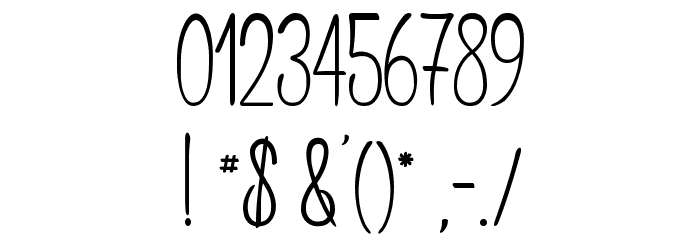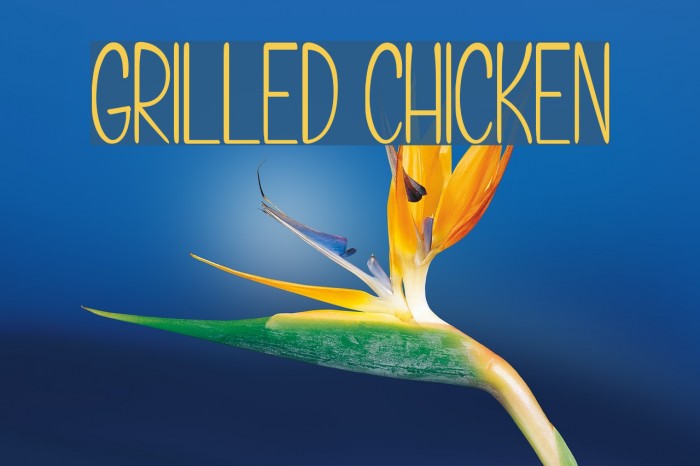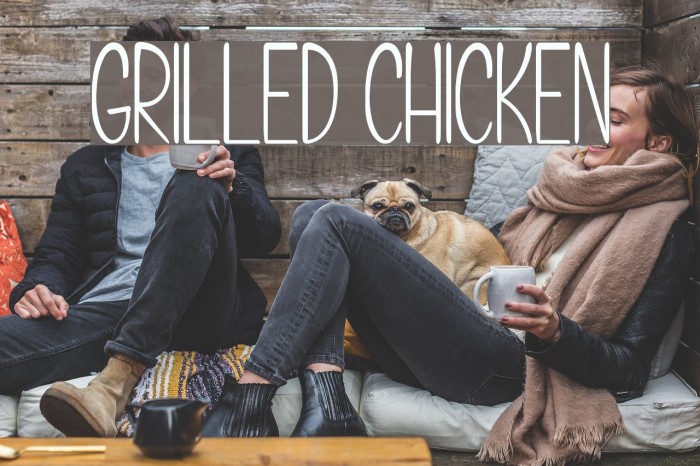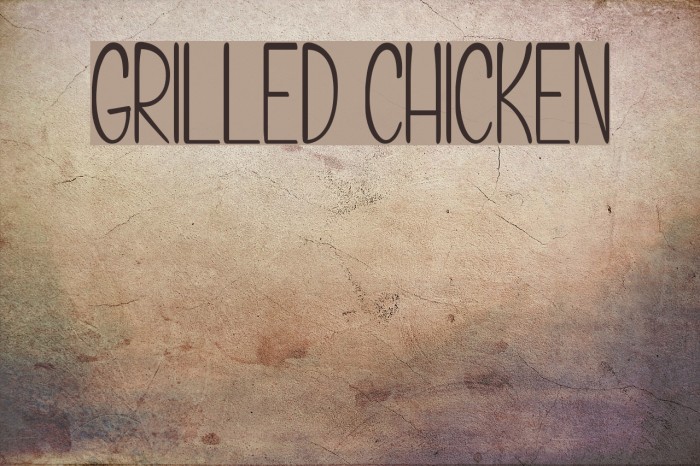
Grilled Chicken Font
This font features a playful and casual handwritten style with tall, narrow characters. The letters have a consistent stroke width, giving it a clean and uniform appearance. The uppercase and lowercase letters maintain a cohesive look, with rounded edges and a slight slant that adds to its informal charm. The numbers and special characters are designed to match the overall aesthetic, making it versatile for various uses. Its simplicity and readability make it suitable for both digital and print media, where a friendly and approachable tone is desired.
A playful, handwritten font with tall, narrow characters and a casual style.
- Proposed Projects: Ideal for greeting cards, children's books, casual branding, and social media graphics.
- Overall Style: Casual
- Use Case: Headlines, Logos, Social Media